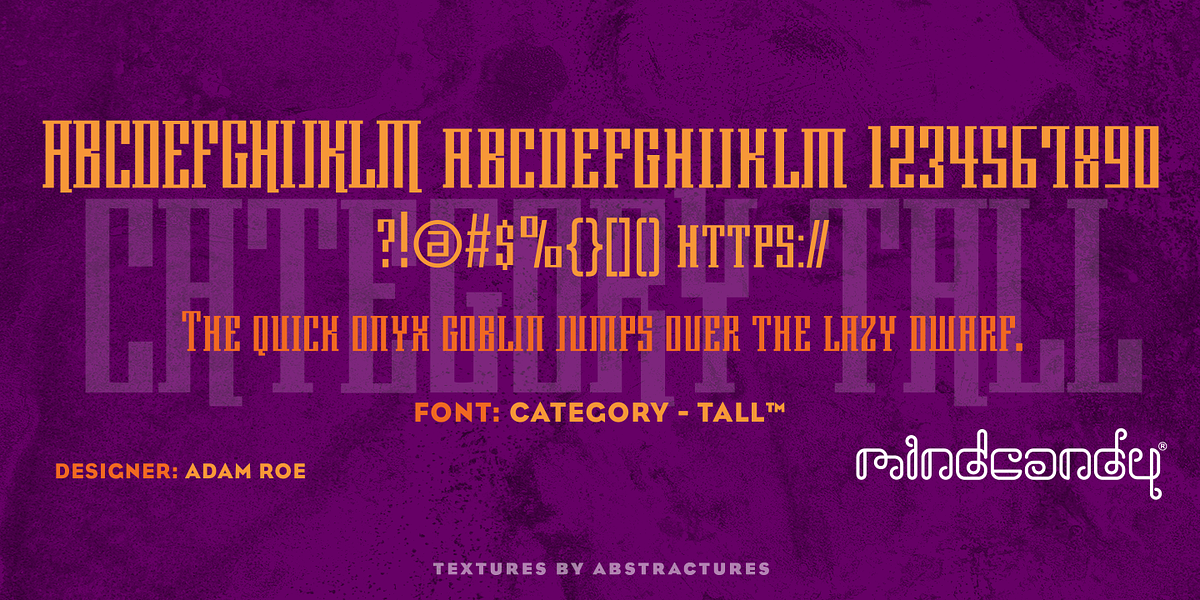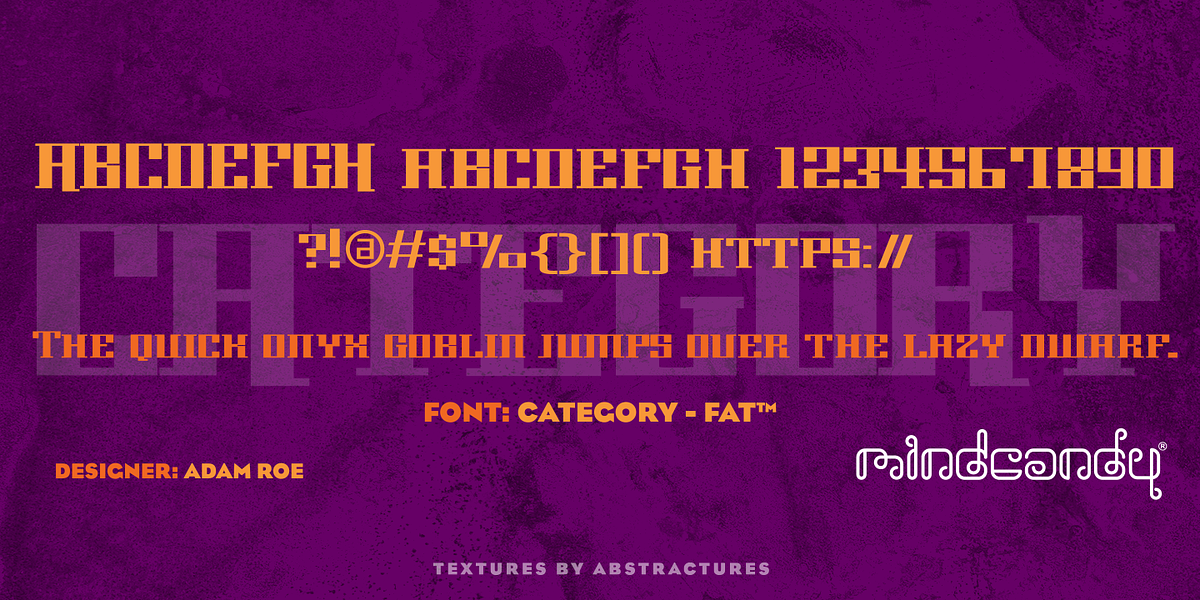
Category™
This square display serif font is designed for bold impact. Its sharp serifs and geometric construction make it ideal for headlines, posters, and branding applications where a strong visual presence is desired.